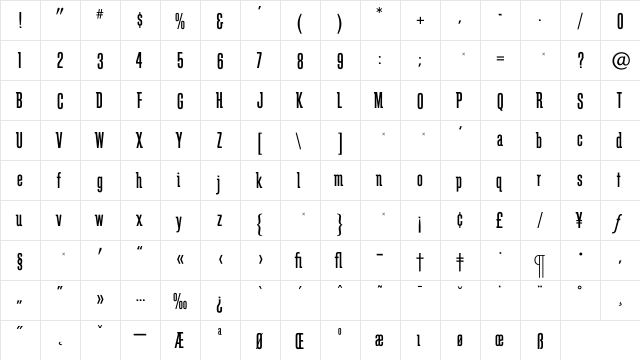
SchindlerMedium Regular
Design Context for SchindlerMedium Typeface
SchindlerMedium is a composed and adaptable typeface that performs quietly and consistently across a wide range of design contexts.